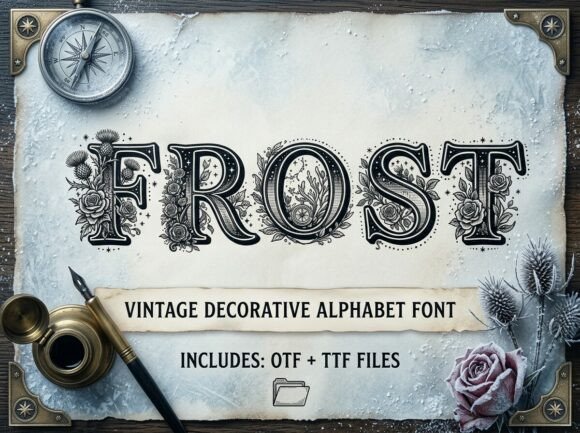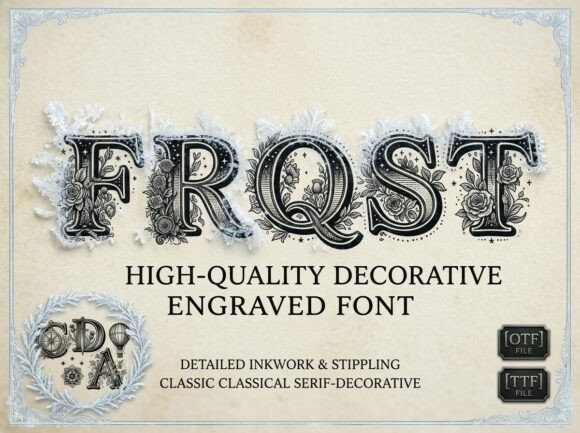
The Frost Font: A Stunning Decorative Display Font to Elevate Your Designs
Have you ever been working on a project, pouring your heart and soul into it, only to hit a roadblock when it comes to finding the perfect font? I recall a particularly frustrating experience when a client asked for a bold, eye-catching headline that would make their brand stand out. After scouring the internet for hours, I stumbled upon the Frost Font, and it was love at first sight! ✨ In this article, we’ll dive into the world of Frost Font, exploring its unique features, and how to make the most of this stunning decorative display font.
A Personal Review: What I Love About Frost Font
So, what makes Frost Font so special? Here are a few things that caught my attention:
- ✨ Unique Artistic Elements: Frost Font boasts an unmistakable visual personality, making it perfect for creators who want to break away from the ordinary.
- ✅ Versatility: Whether you’re designing bold headlines, artistic logos, or creative packaging, Frost Font maintains a professional and polished finish.
- 🔥 High-Impact Headlines: This font is specifically designed to make a statement, making it ideal for projects that require a bit of drama.
While Frost Font is an amazing addition to any design project, there are a few things to keep in mind:
- ⚠️ ALL-CAPS Only: Frost Font is an uppercase-only display typeface, which means it doesn’t include lowercase letters. This might limit its use for body text or longer paragraphs.
- 🤔 Glyphs and Alternates: While Frost Font does offer some OpenType features, it’s essential to explore these glyphs and alternates to get the most out of the font.
The Designer Inspiration Behind Frost Font
Rumor has it that the creator of Frost Font was inspired by the breathtaking beauty of winter landscapes. They aimed to capture the essence of frosty mornings, icy lakes, and snow-covered mountains in a single font. The result is a stunning decorative display font that’s sure to make your designs shine! ❄️
| Font Name | Frost Font |
| Is Frost Font suitable for body text or longer paragraphs? | While Frost Font is an amazing display font, it’s not ideal for body text or longer paragraphs due to its ALL-CAPS design and limited character set. |